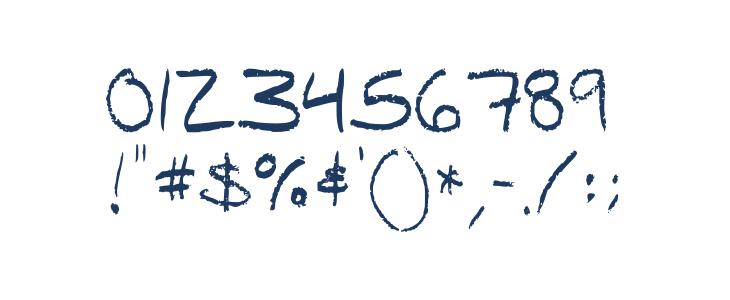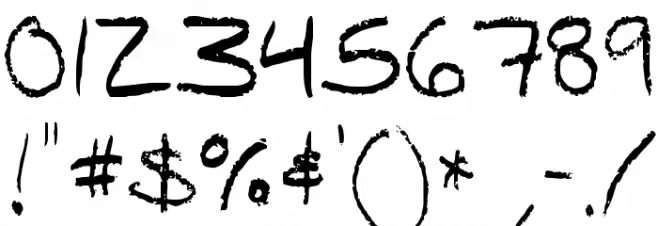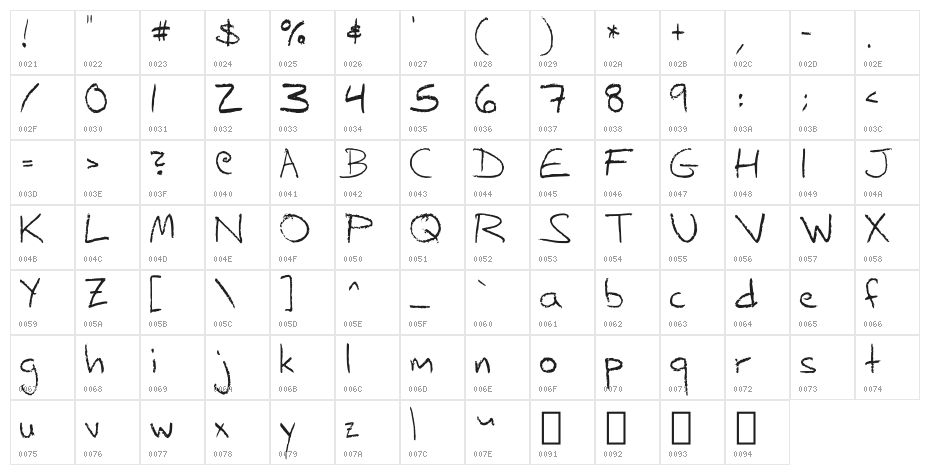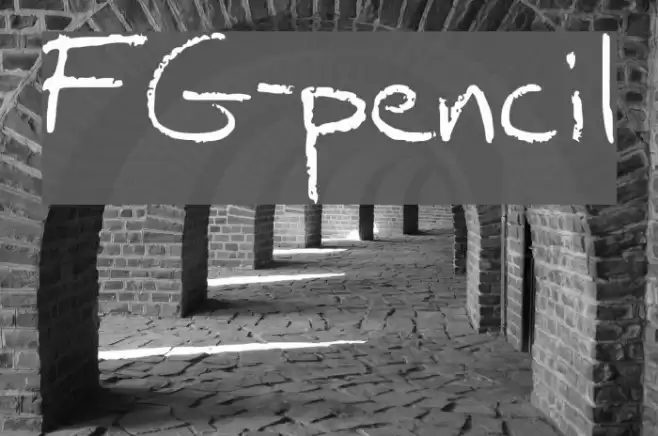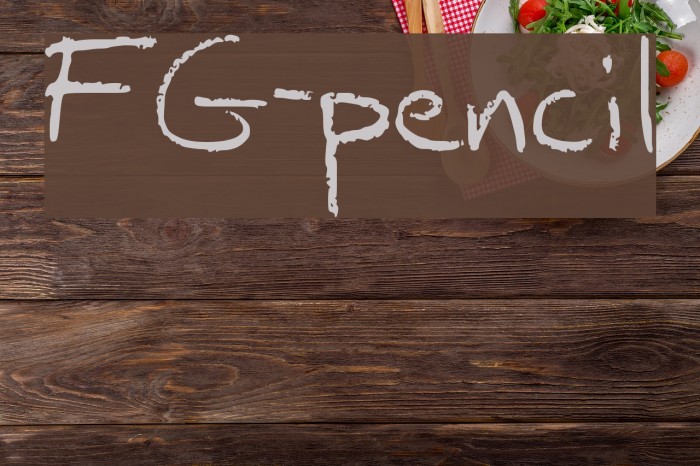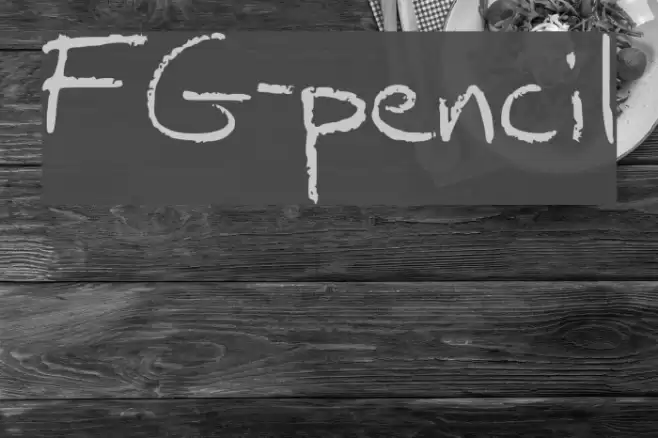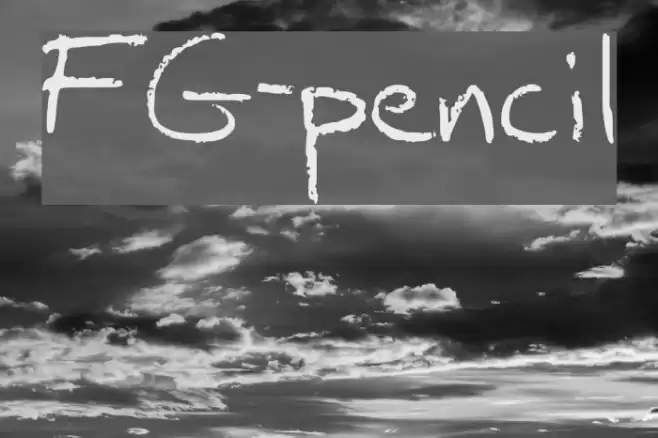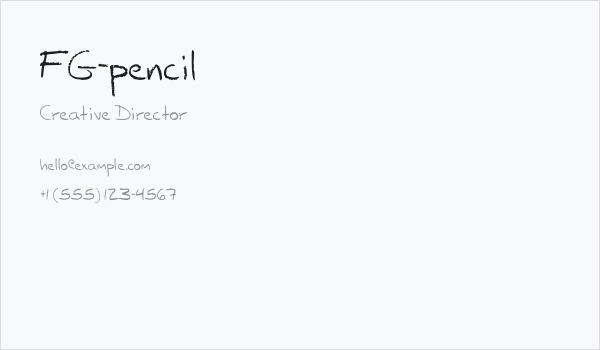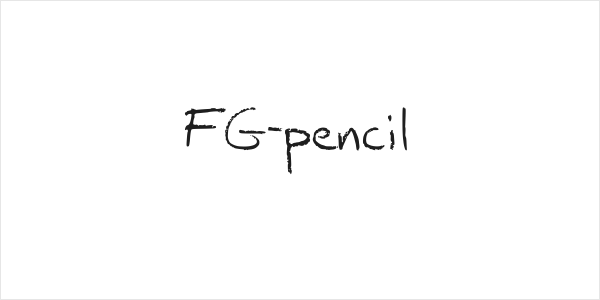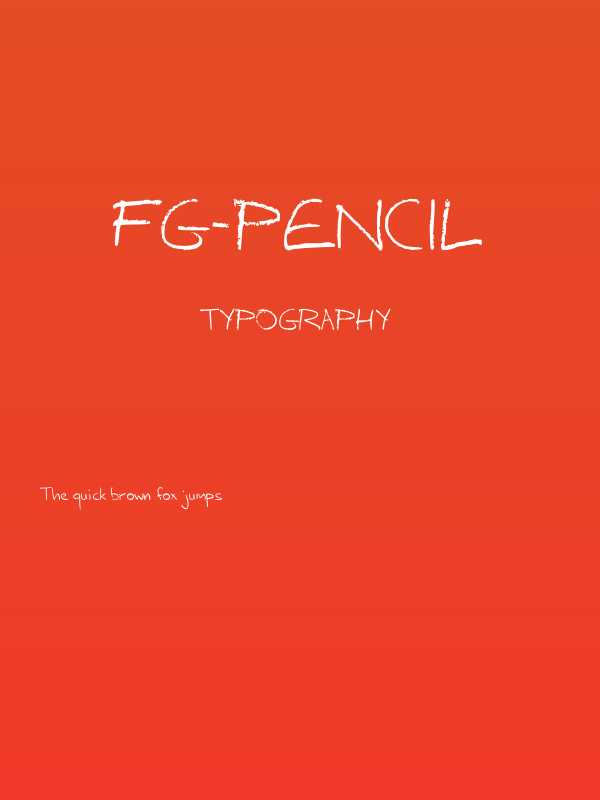
FG-pencil Font
FG-pencil Description
This font features a hand-drawn, sketch-like appearance reminiscent of pencil writing. The characters are irregular and slightly rough around the edges, giving it an authentic, artistic feel. The uppercase and lowercase letters maintain a consistent style, with a playful and informal touch. Numbers and special characters follow the same design, ensuring a cohesive look throughout. The font's texture mimics the effect of a pencil on paper, adding a tactile dimension to its visual appeal.
| Overall Style | Artistic |
| Proposed Projects | Ideal for creative projects such as children's books, artistic posters, casual invitations, and educational materials. |